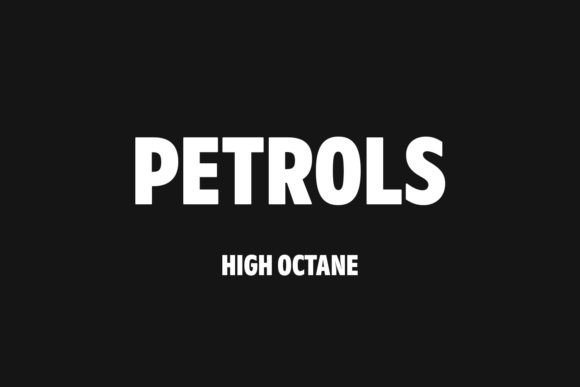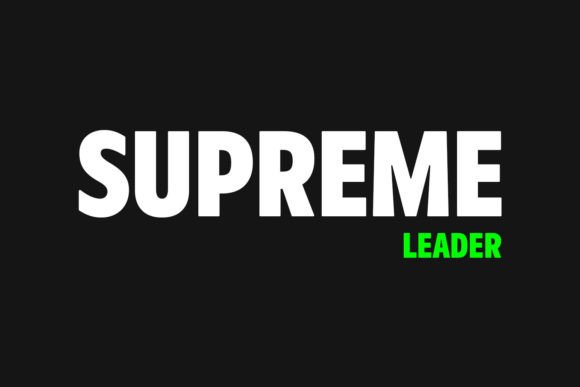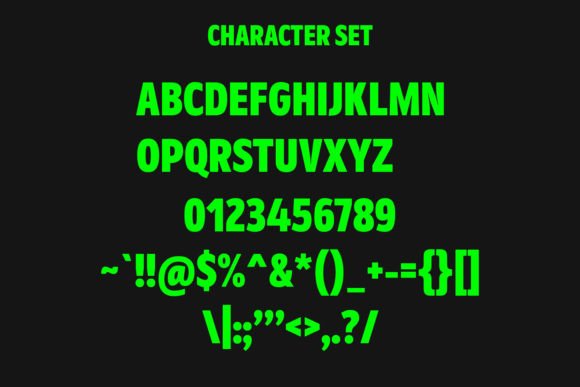
The Designer’s Delight: How Goshco Font Elevates Your Creative Projects
I’ll never forget the time I was working on a branding project for a trendy coffee shop. My client wanted a font that was modern, yet authentic, and would appeal to their young and hip target audience. I spent hours scouring through font libraries, but nothing seemed quite right. That was until I stumbled upon Goshco Font. 💡
Strong, modern, and authentic, Goshco Font brings a special and trendy vibe to each of your projects. No matter the topic, this font will be an incredible asset to your fonts’ library, as it has the potential to elevate any creation. In this article, I’ll share my honest review of Goshco Font, provide a practical guide on how to use it, and explore similar fonts that you might love.
The Good ✨
- ✅ Unique and modern design: Goshco Font has a distinctive look that will make your projects stand out from the crowd.
- ✅ Highly versatile: This font works well for both digital and print projects, from social media graphics to brochures and posters.
- ✅ Easy to read: Despite its modern design, Goshco Font remains clear and legible, even at smaller font sizes.
The Not-So-Good 🤔
- ⚠️ Limited language support: Goshco Font may not support all languages, so be sure to check the character set before using it for a project.
- ⚠️ Some glyphs may require manual adjustment: While the font has a wide range of glyphs and OpenType features, some may require manual adjustment to work perfectly.
If you love Goshco Font, you might also enjoy these similar fonts:
- Montserrat: A sleek and modern sans-serif font perfect for digital projects.
- Raleway: An elegant and refined font with a luxurious feel.
- Merriweather: A classic serif font with a sophisticated and timeless look.
- Inter: A contemporary sans-serif font designed specifically for digital use.
The Story Behind Goshco Font
Goshco Font was designed with the modern creative in mind. Its unique and modern design makes it perfect for a wide range of projects, from branding and advertising to packaging and digital media. The font’s creator aimed to craft a font that was both stylish and legible, making it an excellent choice for designers and crafters alike.
Q: What type of projects is Goshco Font best suited for?
A: Goshco Font is highly versatile and works well for a wide range of projects, including branding, advertising, packaging, and digital media.
Q: Does Goshco Font support OpenType features?
A: Yes, Goshco Font supports OpenType features, including Stylistic Alternates, Glyphs, and Ligatures.
Q: Is Goshco Font easy to read?
A: Yes, despite its modern design, Goshco Font remains clear and legible, even at smaller font sizes.